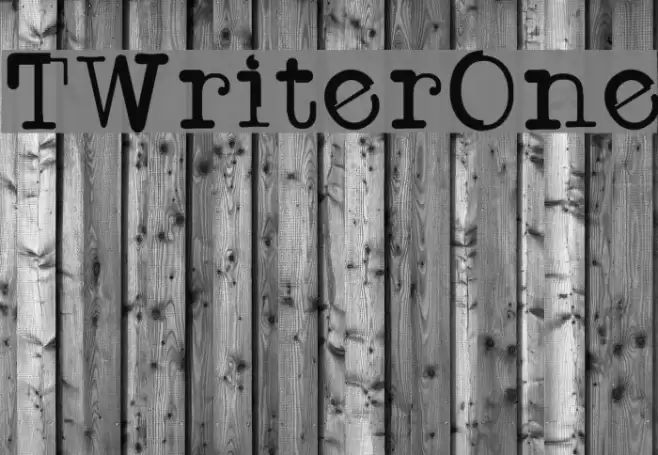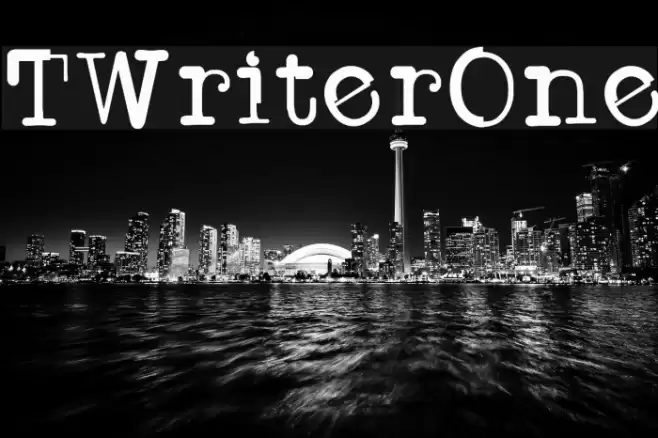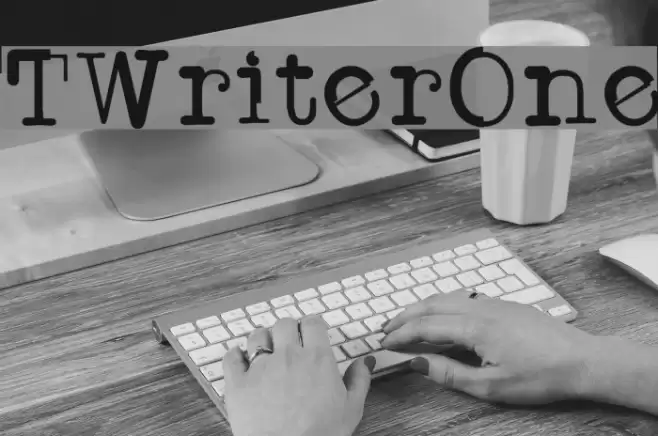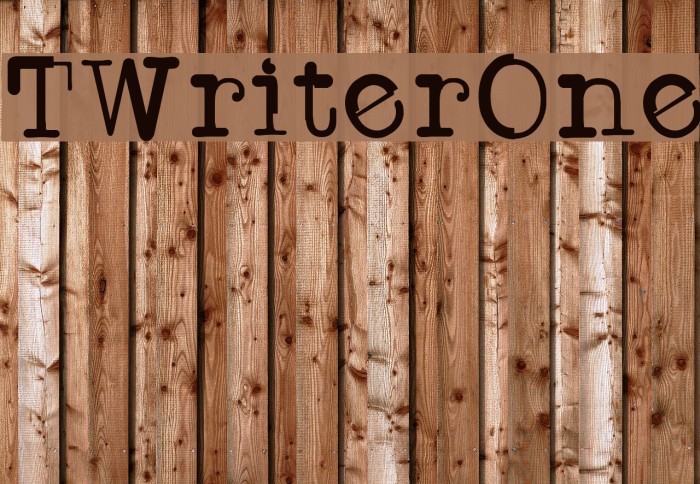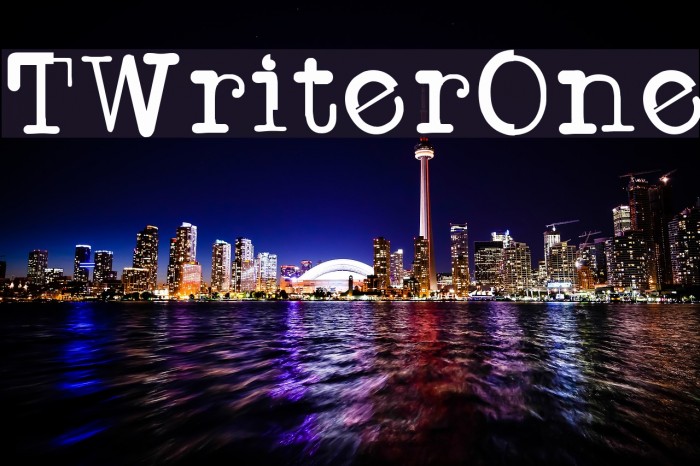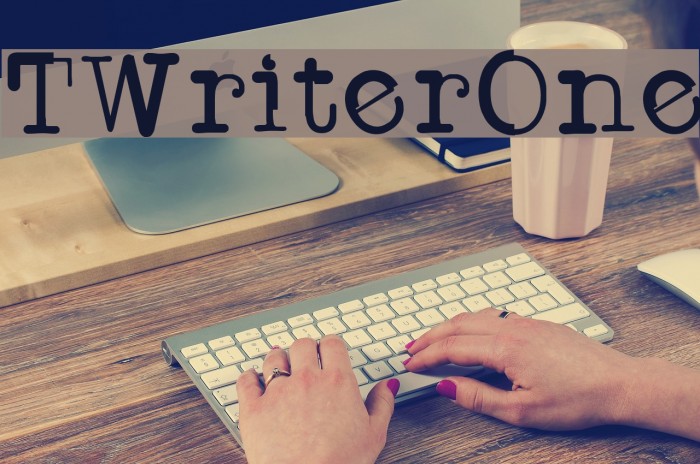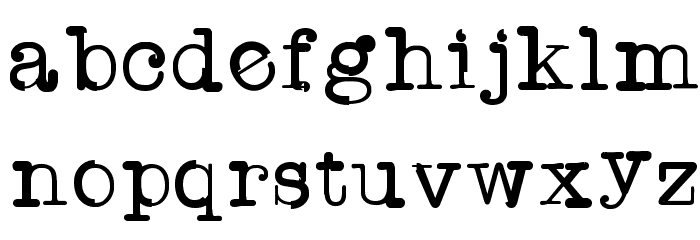
TWriterOne Font
TWriterOne Description
This font features a classic typewriter style with a distinct slab serif design. Each character is bold and well-defined, with a mechanical and vintage aesthetic reminiscent of traditional typewriters. The uppercase and lowercase letters maintain a consistent weight, while the numerals and special characters are crafted with precision, adding to the overall retro feel. The font's uniformity and clarity make it suitable for projects that require a touch of nostalgia or a mechanical theme. Its robust and sturdy appearance ensures readability across various mediums.
A bold, slab serif typewriter-style font with a vintage mechanical aesthetic from Uncategorized fonts.
- Proposed Projects: Ideal for retro-themed designs, typewriter-inspired projects, vintage posters, and branding that requires a classic touch.
- Overall Style: Vintage